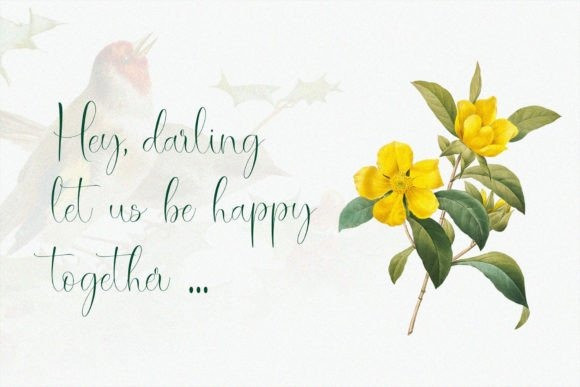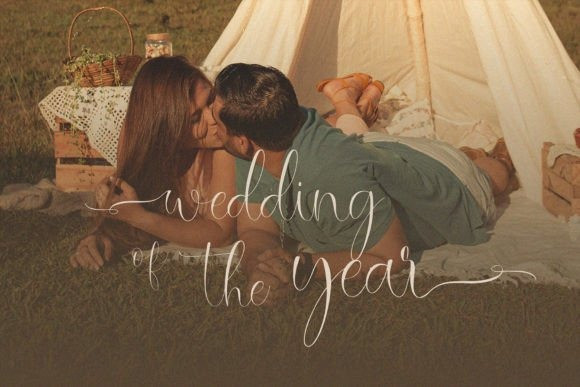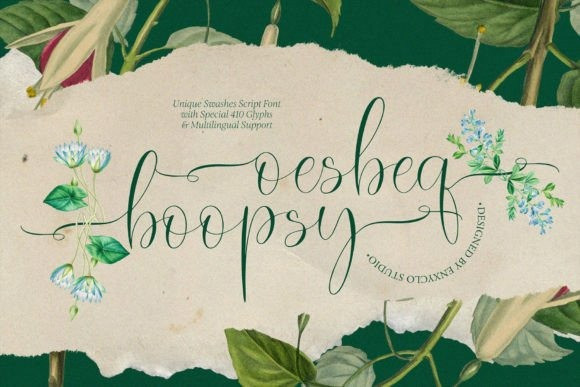
NCL Oesbeq Boopsy Font
NCL Oesbeq Boopsy Font is a swash script font. Masterfully designed to become a true favorite, this font has the potential to bring each of your creative ideas to the highest level! It was purposely crafted to be used in large point sizes, although it doesn’t lose its magic in small point sizes. It is perfect for headlines, billboards, magazines, websites, titles, posters, branding, and logos. No matter the topic, this font will be an incredible asset to your fonts’ library, as it has the potential to elevate any creation. With this beautiful font, you can make your project stand out from the rest.